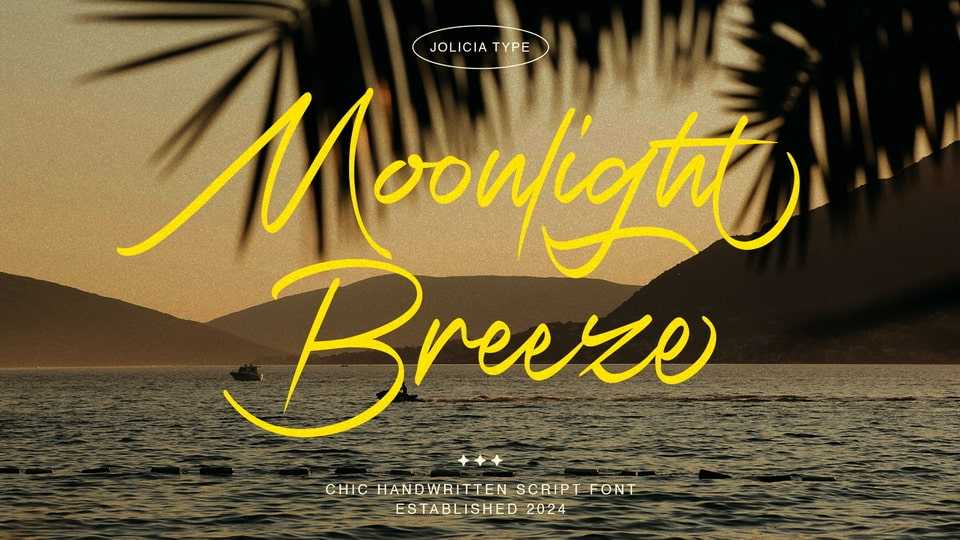
Download Moonlight Breeze font, a graceful handwritten script typeface inspired by the serenity of moonlit nights and the gentle sway of a summer breeze.